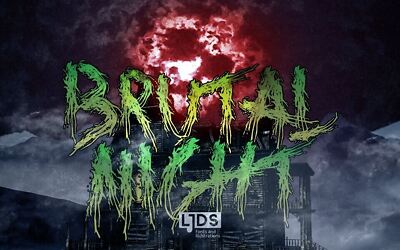
Christmas in the style of Rock and Heavy meta. Know this alternative to celebrate and illustrate Christmas to another style, more rock, more you, a perfect option for those bands that Rock and Heavy Metal that have tours scheduled for these special dates.